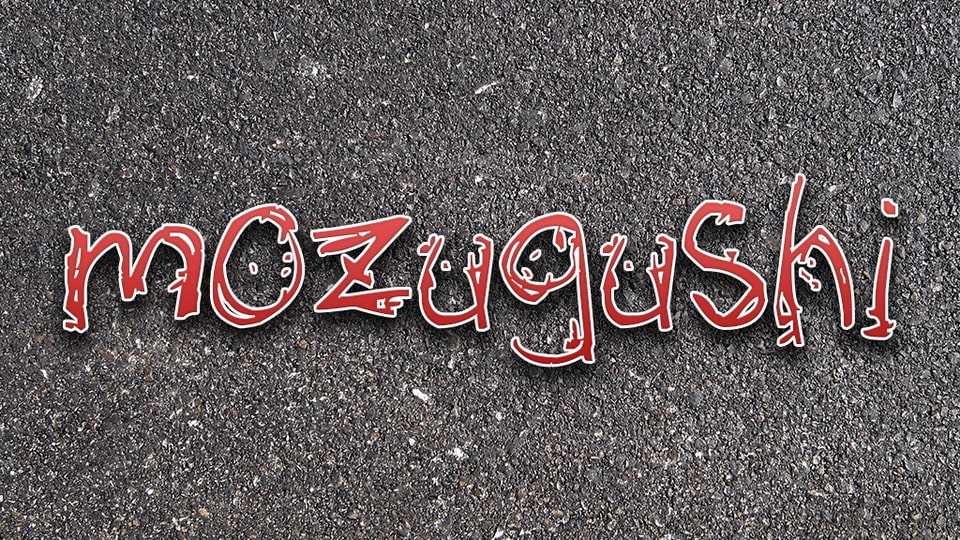
Download Mozugushi font, a scratched and creepy hand drawn typeface that immerses your designs in an eerie atmosphere. Mozugushi font is designed to bring an otherworldly and macabre touch to your projects, perfect for horror-themed designs.